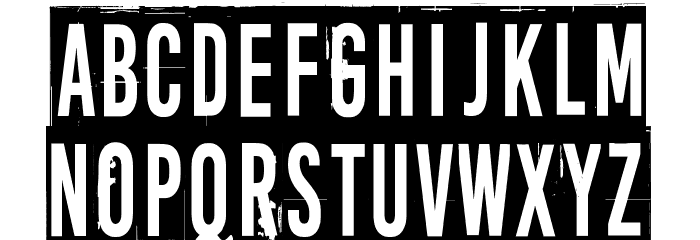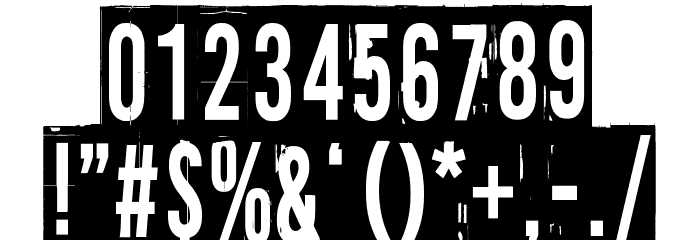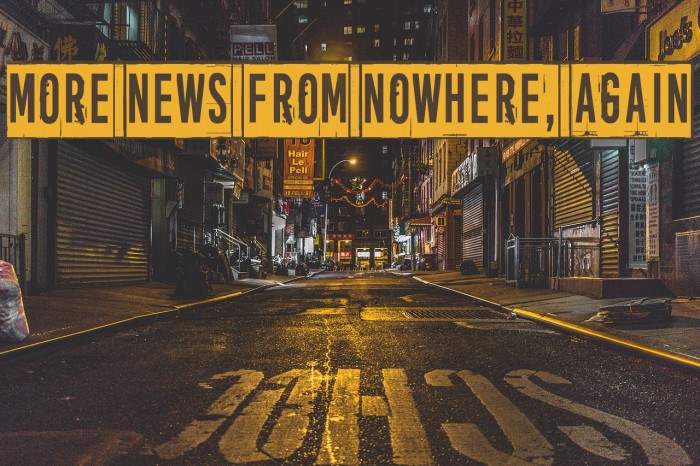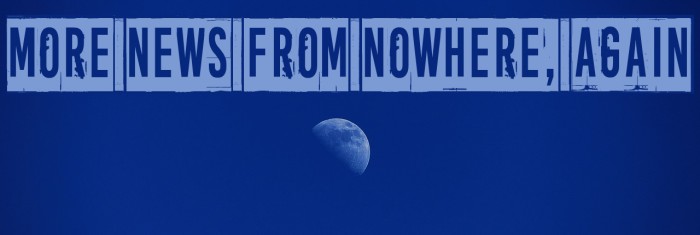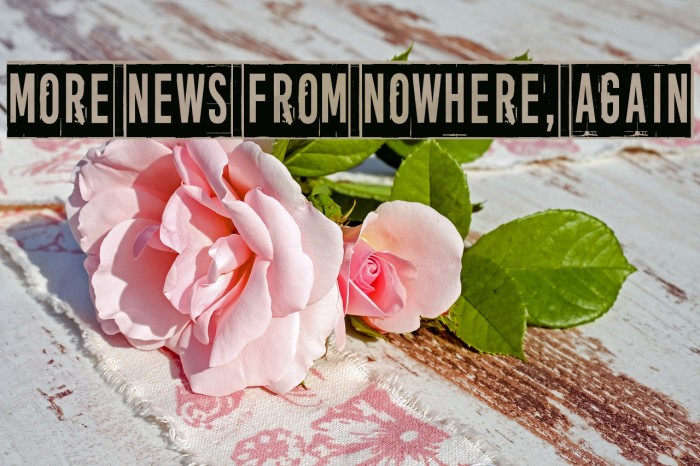
More news from nowhere, again Font
This font features a bold, impactful style with a distressed, grunge-like texture that gives it a rugged and edgy appearance. The uppercase letters are tall and narrow, creating a strong vertical emphasis. The characters are uniformly aligned with consistent height, contributing to a cohesive look. The numbers and special characters share the same distressed aesthetic, making them suitable for designs that require a raw, industrial feel. The texture adds a layer of depth and character, making it ideal for projects that aim to convey a sense of rebellion or urban grit.
A bold, distressed font with a rugged, grunge aesthetic.
- Proposed Projects: Ideal for album covers, posters, streetwear branding, and urban-themed designs.
- Overall Style: Grunge, Urban, Edgy